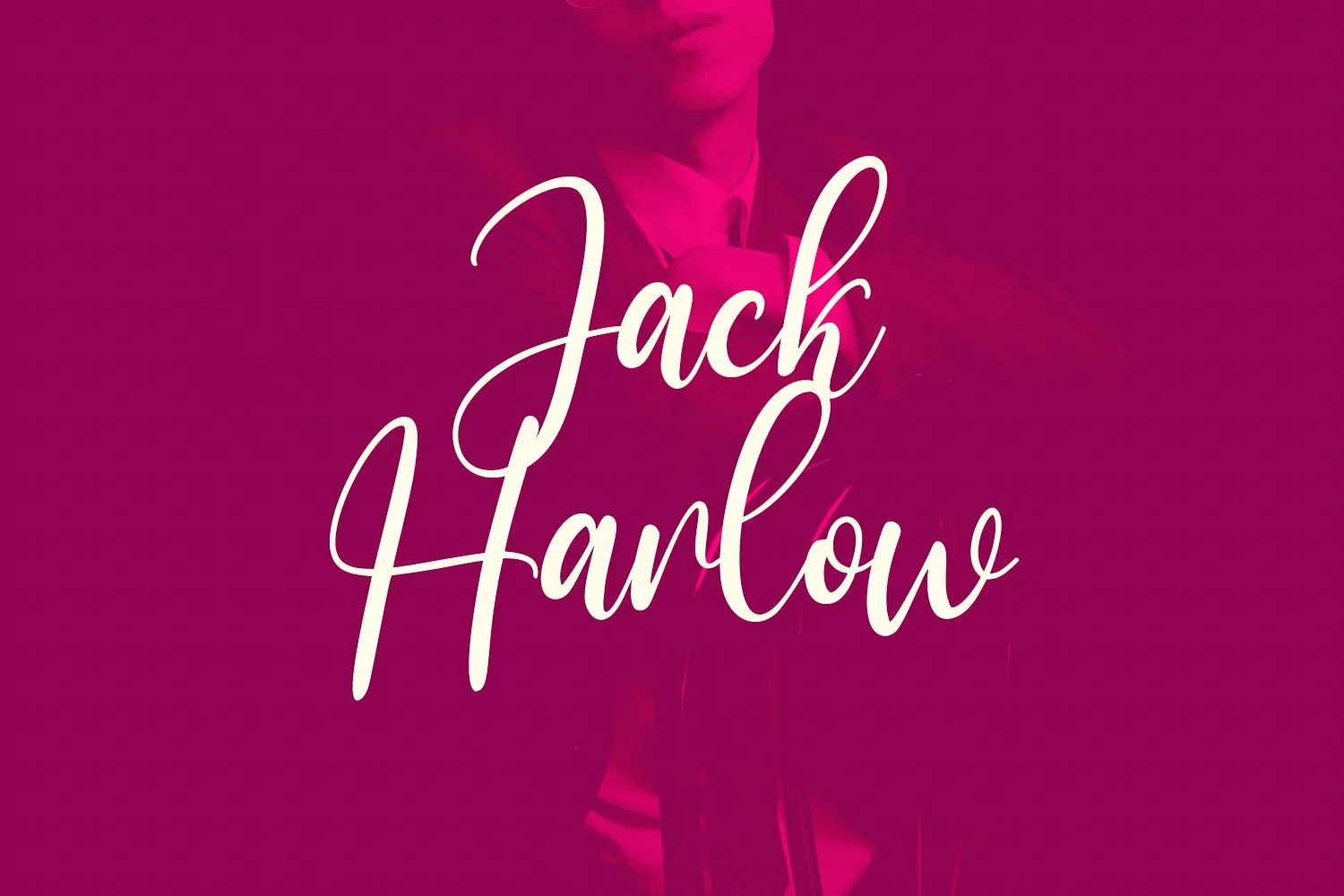
Briefstays is a smooth curvy script font. With high contrast stroke, fun character with a bit of ligatures and alternates. To give you an extra creative work. Briefstays font support multilingual more than 100+ language. This font is good for logo design, Social media, Movie Titles, Books Titles, a short text even a long text letter and good for your secondary text font with sans or serif. Make a stunning work with Briefstays font.